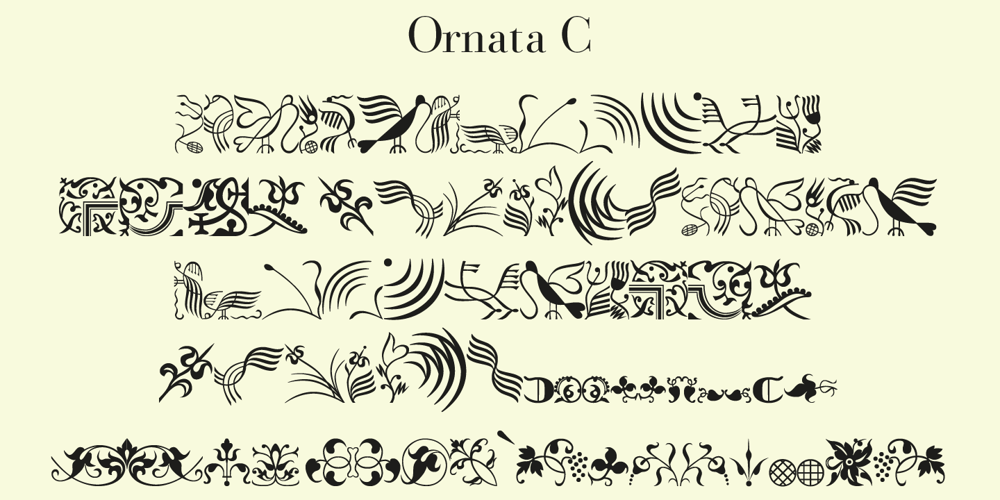
Ornata C
Ornata C font
Ornata C Font Family was designed by Gert Wiescher and published by Wiescher Design. Ornata C contains 1 styles and family package options. Ornata C is the third of a series of old ornaments that I am trying to save from oblivion. I am not just scanning these, I am completely redesigning the ornaments from scratch, thereby eliminating imperfections. These ornaments have been first designed by a designer named Ben Sussan. The designs date back to about 1910. Your digitizing type-designing savior, Gert Wiescher